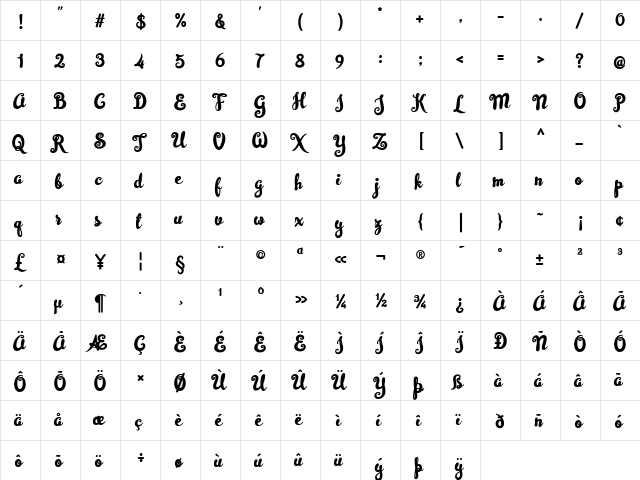
Simplisicky Fill Regular
| Foundry | darwinoo |
| Designer | darwinoo |
Design Context for Simplisicky Fill Typeface
Simplisicky Fill is a composed and adaptable typeface that performs quietly and consistently across a wide range of design contexts.